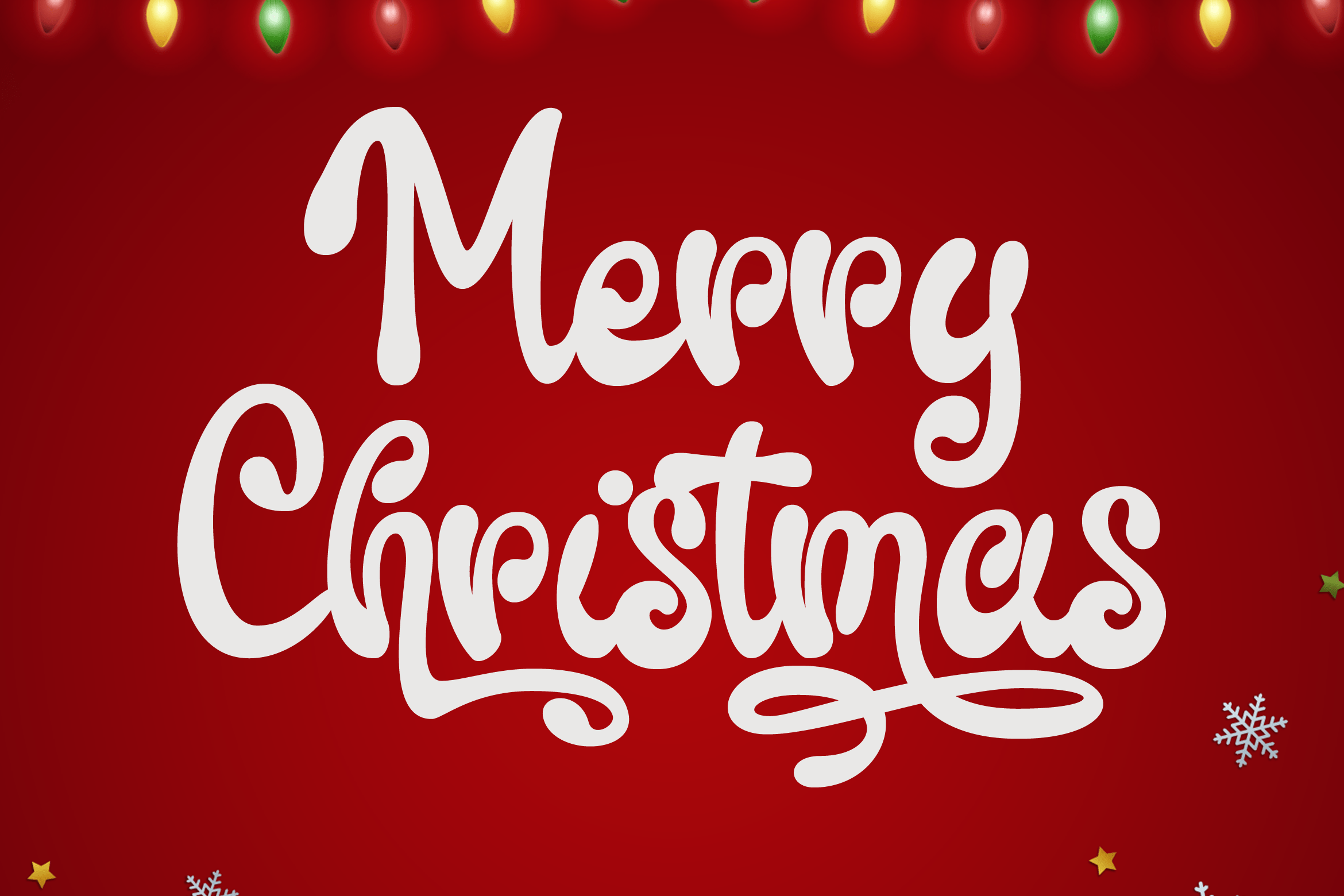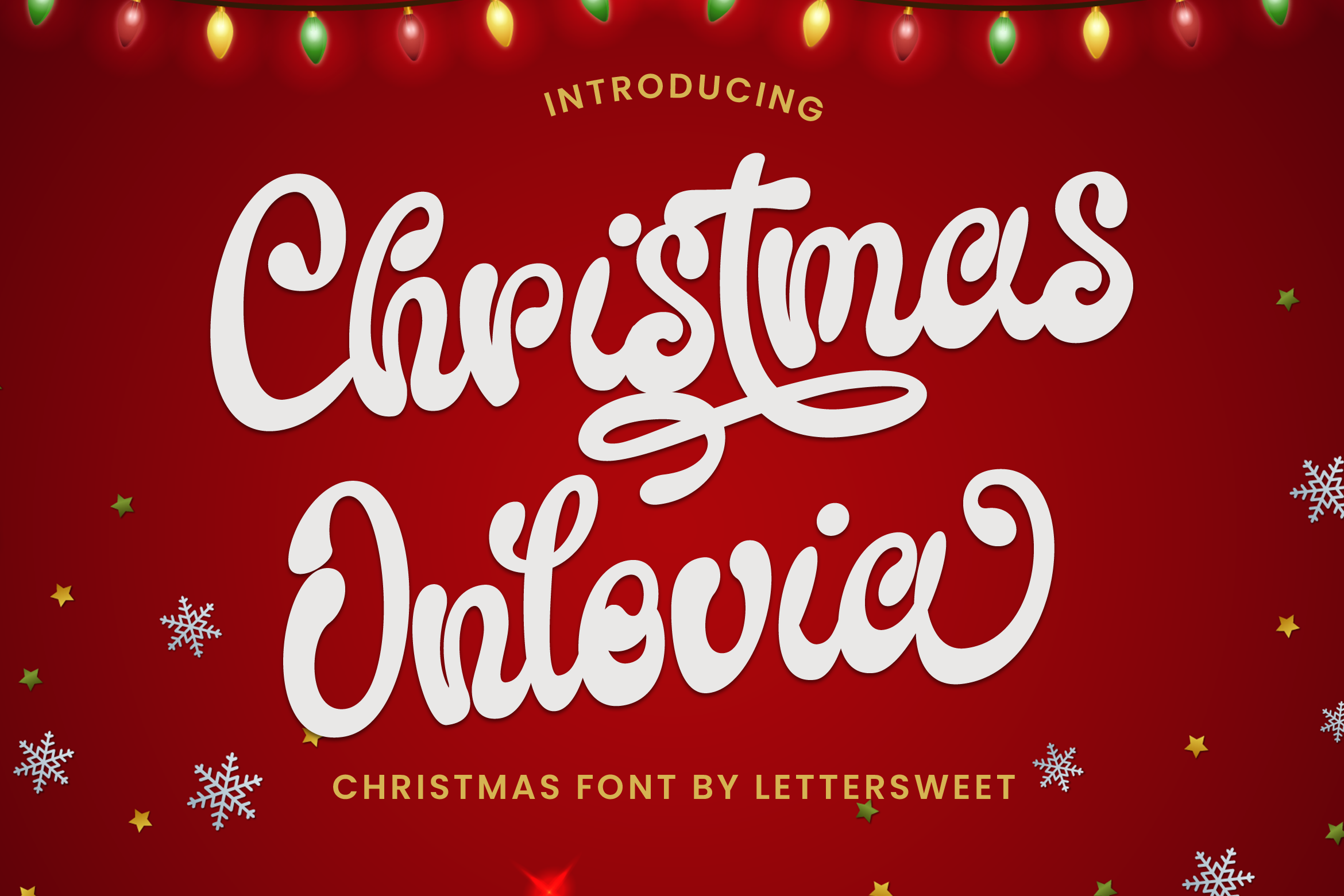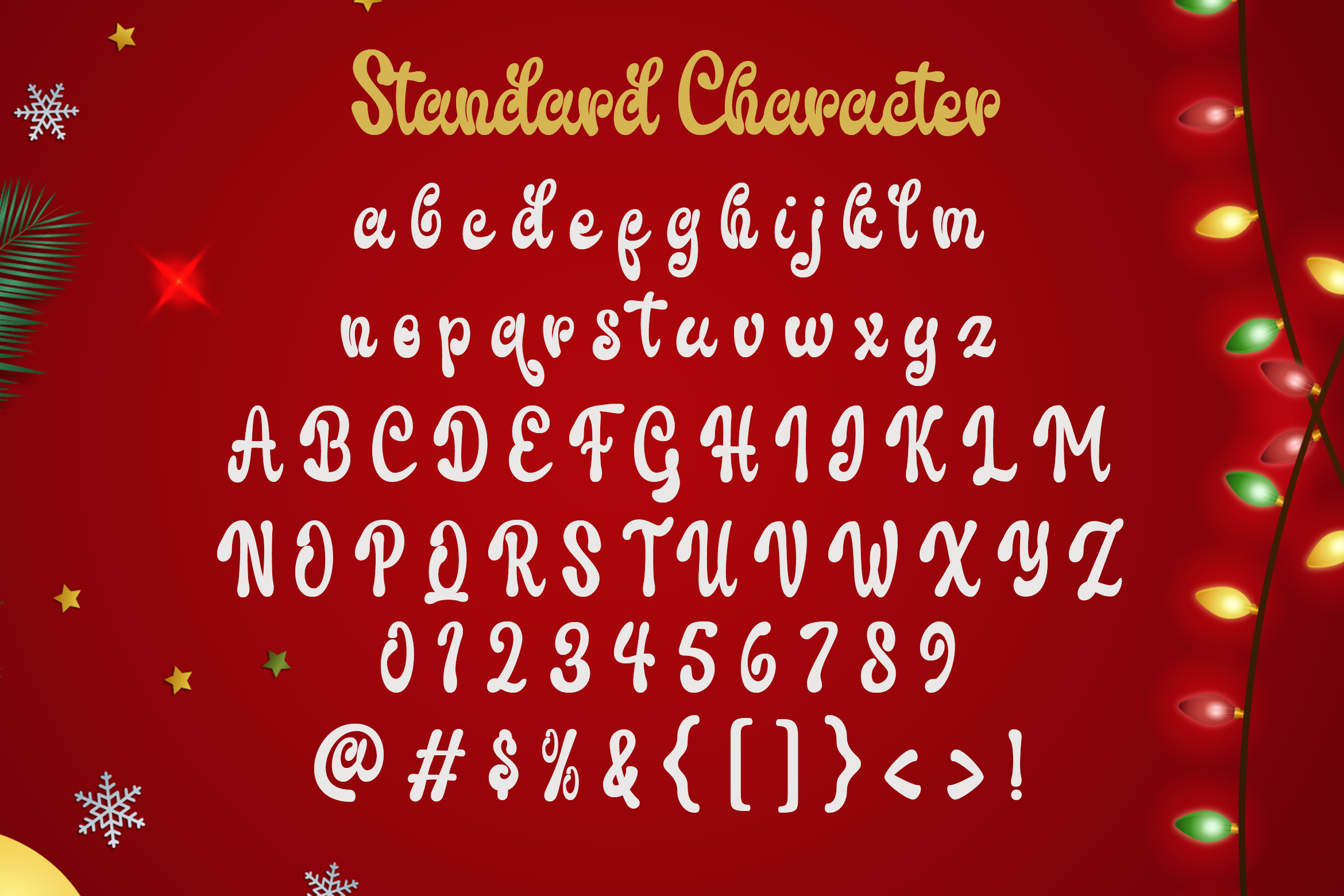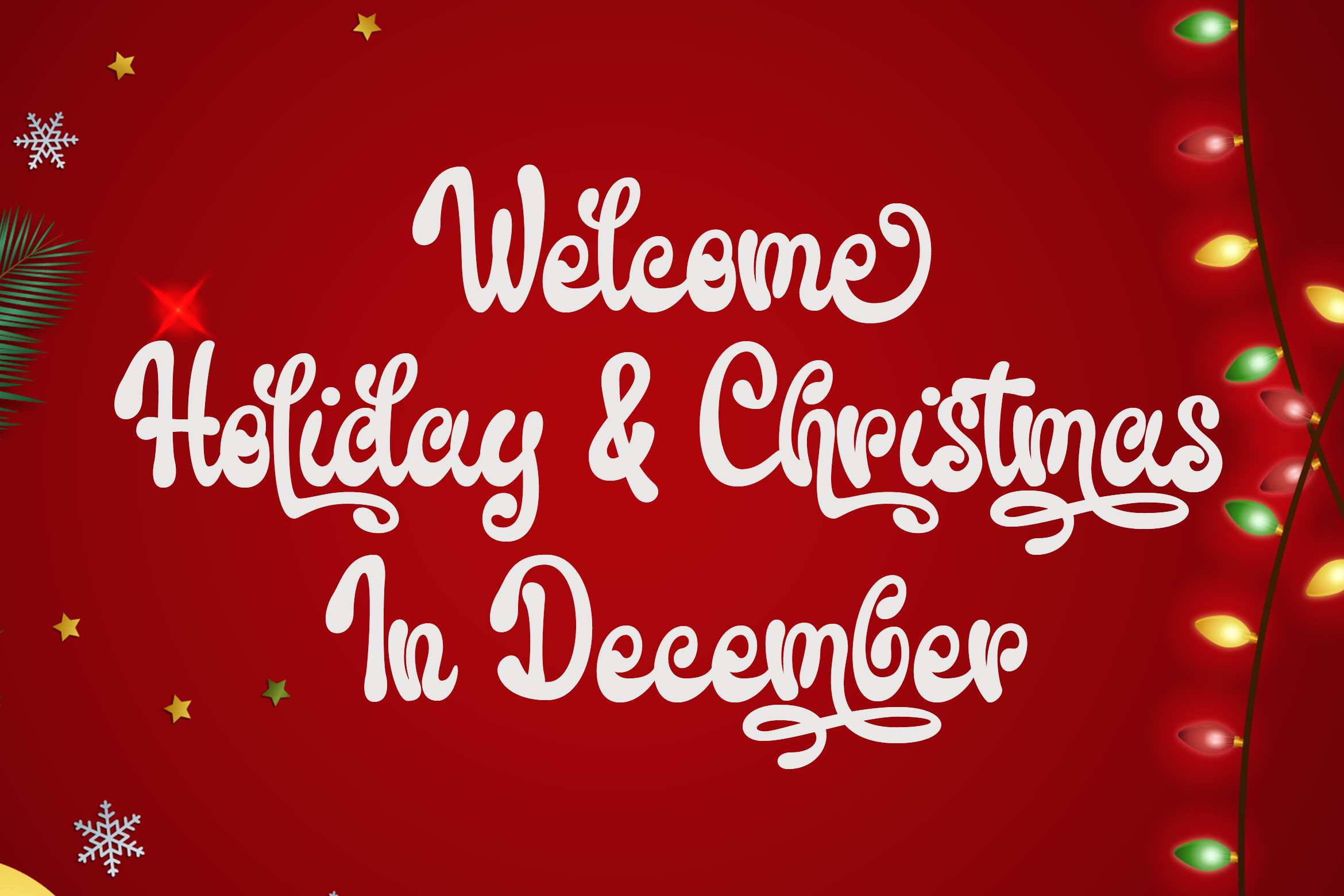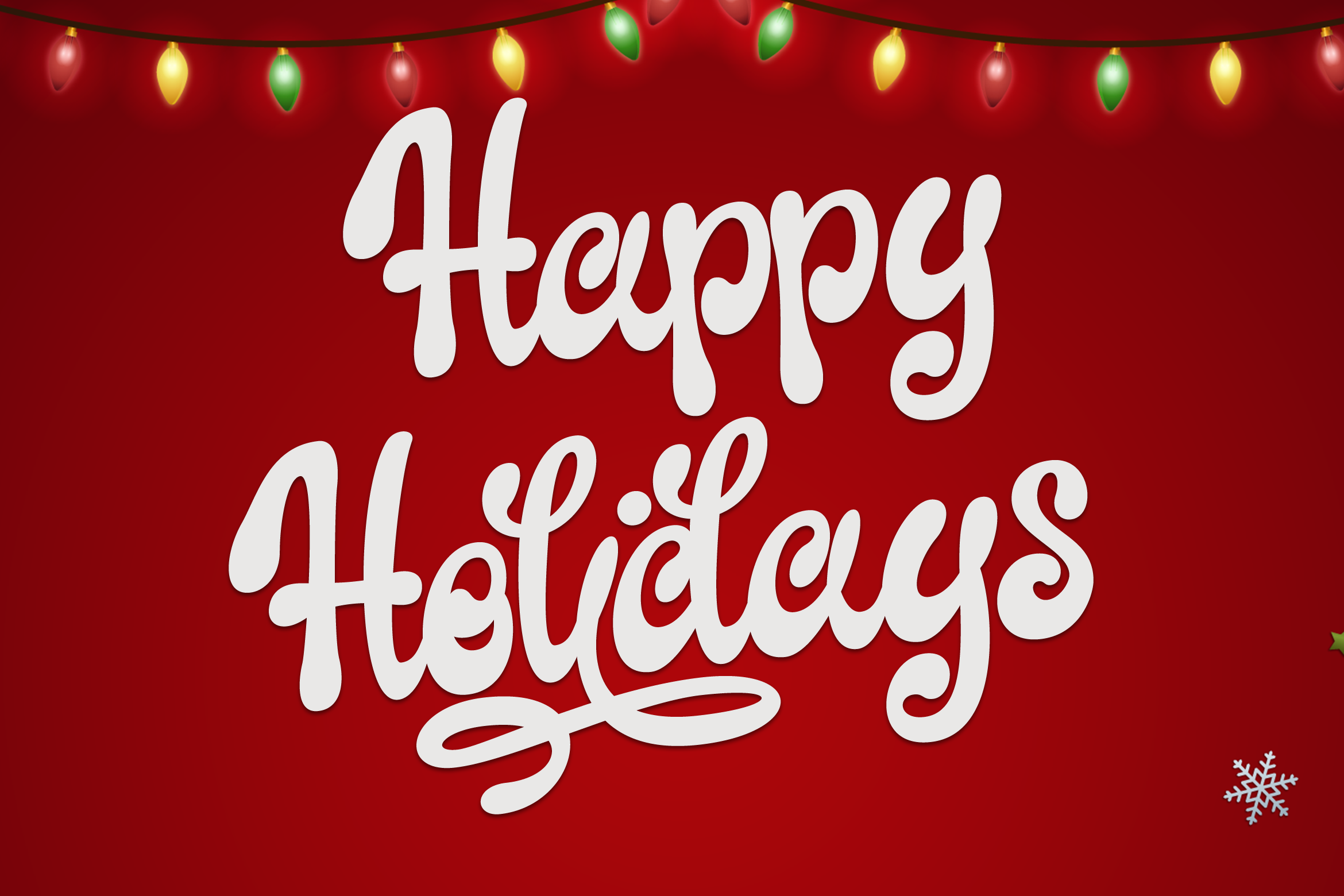
Christmas Onlovia Font
Christmas Onlovia Script Font is a beautiful and sweet handwritten font. It is fresh, clean, and elegant. This font will look amazing in a great amount of projects, both formal and informal. This font is PUA encoded which means you can access all of the glyphs and swashes with ease!